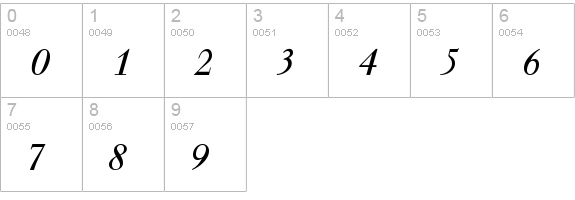
WalbaumEF-RegularItalic Font Details
WalbaumEF-RegularItalic is a beautifully crafted font that exudes elegance and sophistication. With its delicate and slanted italics, this font adds a touch of grace to any design project. The smooth and flowing curves of each letter create a harmonious and pleasing visual appeal. This font is perfect for creating stunning typography, whether it's for formal invitations, book covers, or editorial layouts. Its versatility allows it to be used in a wide range of design styles, from traditional to modern. The refined and timeless aesthetic of WalbaumEF-RegularItalic will make any text stand out with a touch of class. What makes this font even more enticing is that it is available for free! Yes, you read that right. WalbaumEF-RegularItalic can be freely downloaded at FontsMarket.com. This means that you can add this exquisite font to your collection without spending a dime. Don't miss out on this opportunity to elevate your designs with the elegance of WalbaumEF-RegularItalic. Download it today and let your creativity soar.